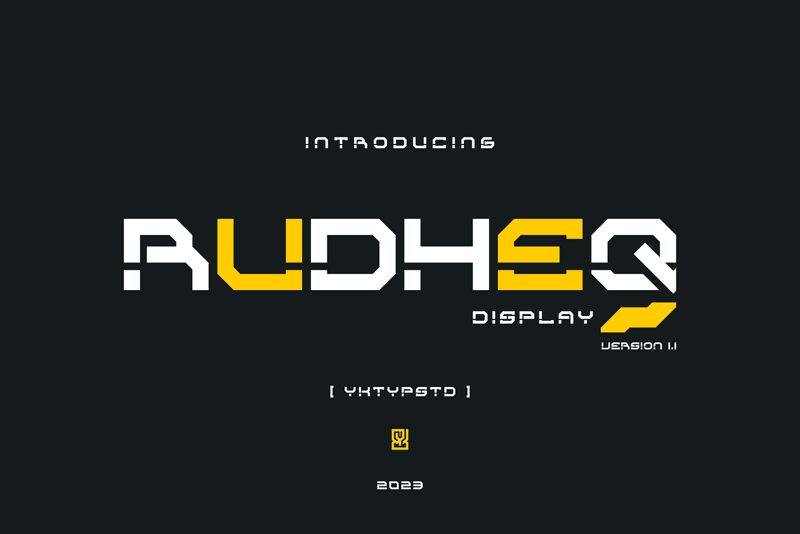
Rudheq font by Yktypstd is an expanded techno display typeface that inspires with its futuristic and unconventional ideas. The enlarged spacing and unique design of the characters set the visual tone that renders a project modern and distinct. Monospace, angular, geometric, industrial are other adjectives that describe this technical font.